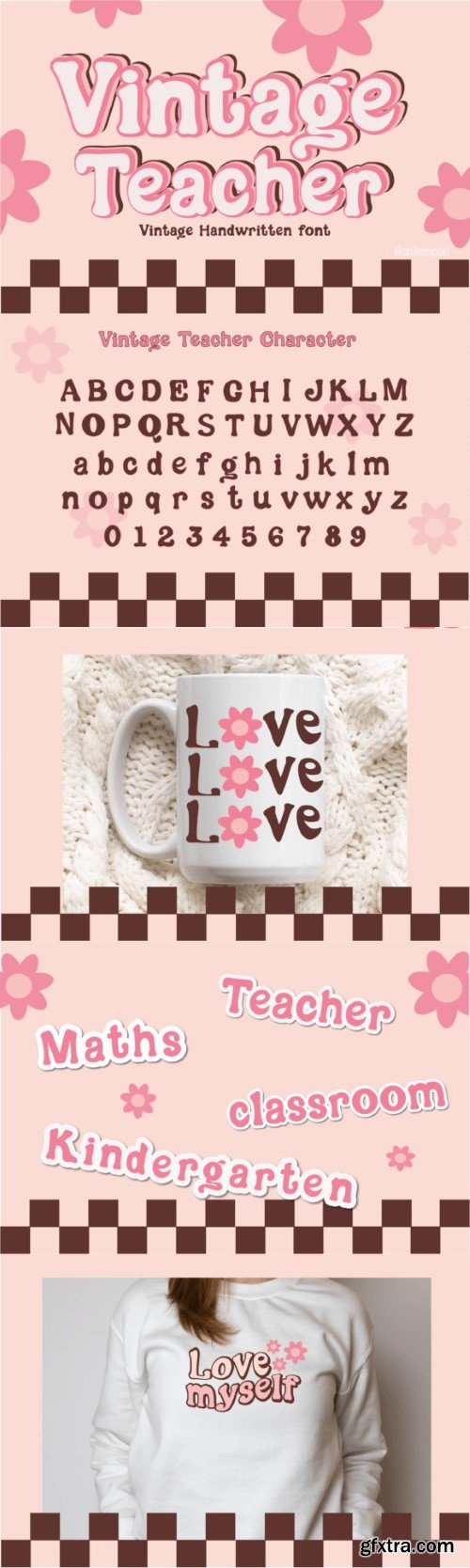
复古教师字体
Vintage Teacher is a vintage style display font, perfect for your favorite projects such as posters, flyers, social media, movie and book titles, invitations, stickers t-shirts, logos, advertisements, clothing, and so much more.